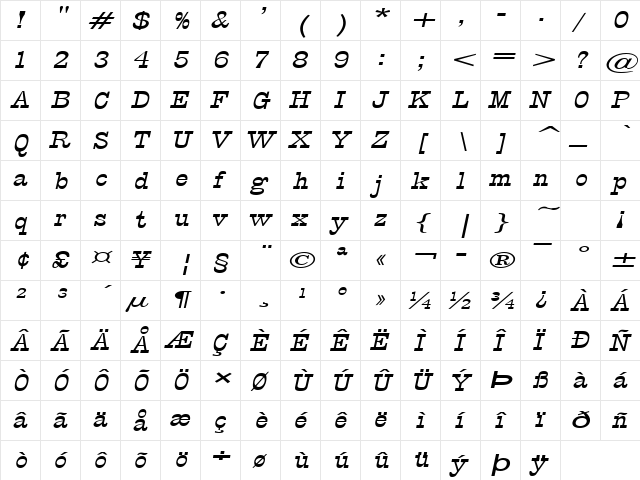
Circus-Extended Italic
Design Context for Circus-Extended Typeface
Circus-Extended takes a measured approach to typography — its balanced proportions and neutral character make it a reliable workhorse for both digital and print work. Its italic angle brings a sense of urgency and motion to the letterforms.
Pro Tip: Use Circus-Extended for emphasis, pull quotes, and subheadings where its slanted energy can add rhythm to the layout.